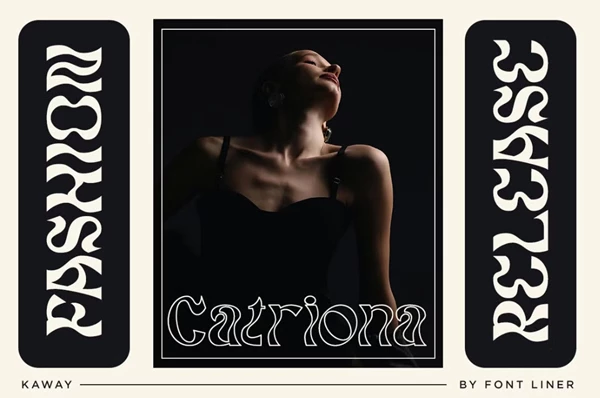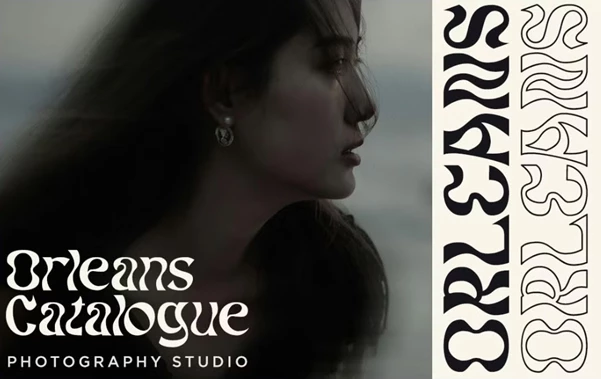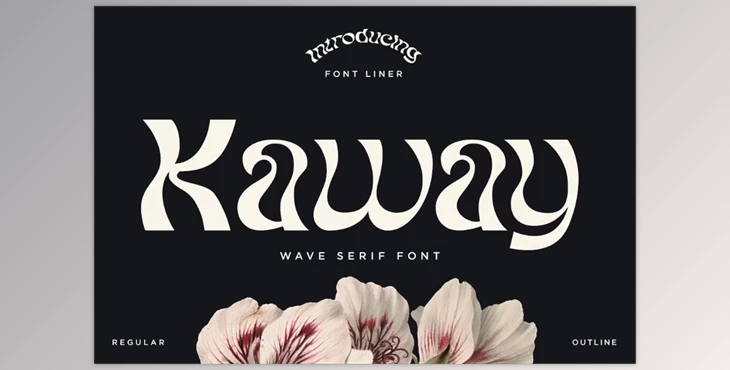
Kaway - Decorative Wave Font:
The Kaway font is a high-fashion serif typeface that transcends elegance with its artistic integration of wavering designs. The nature of this font calls out to anyone who appreciates the little things. If you want to render something high-end and detailed, this is your go-to. This can be used for branding, editorial projects, and special events where you want a touch of the psychedelic. It even has a subtle waver that animates text with a motion as if it were water. This is great for brands and headlines that appreciate the sensibility of a modern vintage look.
- Also Available In Outline